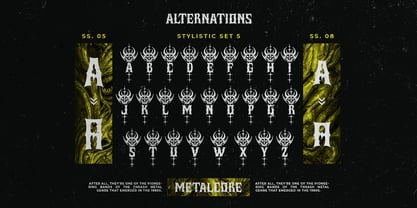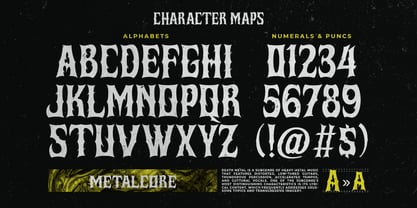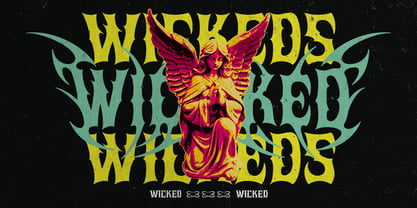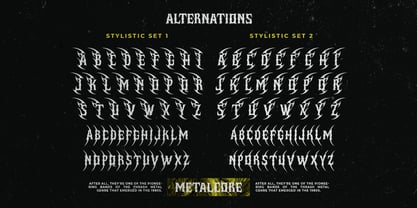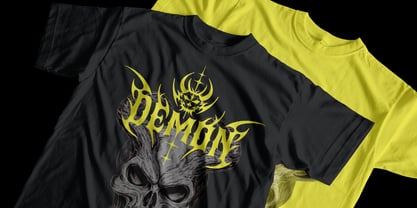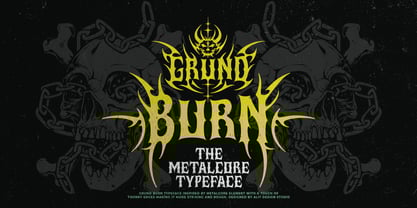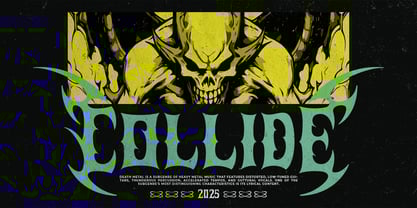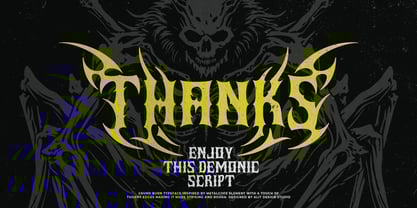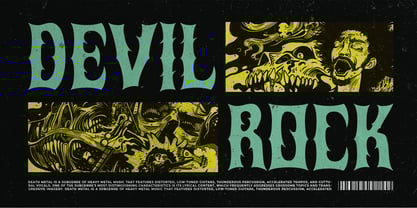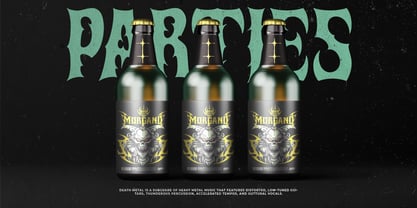
Grund Burn
The Grund Burn Font Family was designed by Alit Suarnegara and published by Alit Design. Grund Burn contains 1 styles. More about this family
Grund Burn Typeface
The Sharp Edge of Black Metal Typography
Unleash the fury of your design with Grund Burn Typeface, a brutal yet readable typeface forged in the fires of black metal inspiration. Designed with razor-sharp thorn elements and aggressive curves, Grund Burn brings an intense visual punch while maintaining legibility—perfect for album covers, band logos, merch, posters, and any design that screams metal.
This typeface strikes a unique balance between chaos and clarity. The letters erupt with pointed spikes and flame-like strokes, yet every character remains clear enough to command attention and communicate your message with force. Whether you're branding a band, creating dark event visuals, or just want to infuse your typography with raw power, Grund Burn is your weapon of choice.
Features:
• Black Metal Aesthetic: Inspired by underground music scenes and metalcore visuals
• Thorned Letterforms: Sharp, stylized characters that feel dangerous yet designed for readability
• All-Caps Typeface: Commanding uppercase characters that dominate the design space
• Alternates & Ligatures: Unique glyph variations to customize your look
• Perfect for: Music branding, heavy metal posters, streetwear, tattoo designs, horror graphics, and more